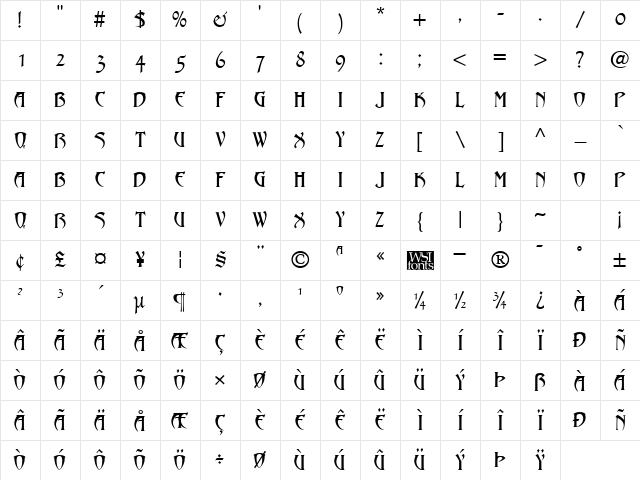
Hadjii Regular Free Font
Hadjii Regular
Design Context for Hadjii
Hadjii is a composed and adaptable typeface that performs quietly and consistently across a wide range of design contexts.